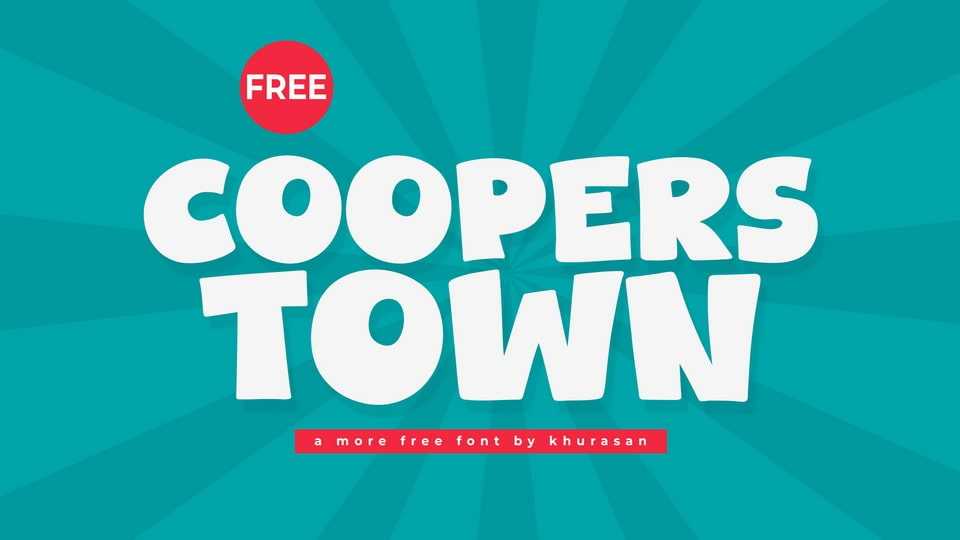
Download Coopers Town font, a bold, playful hand-crafted cartoon typeface that wraps your designs in warmth and fun with its chunky, rounded letterforms.